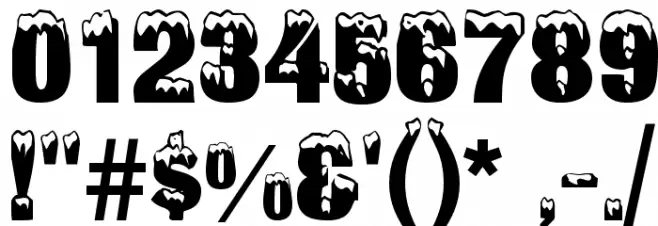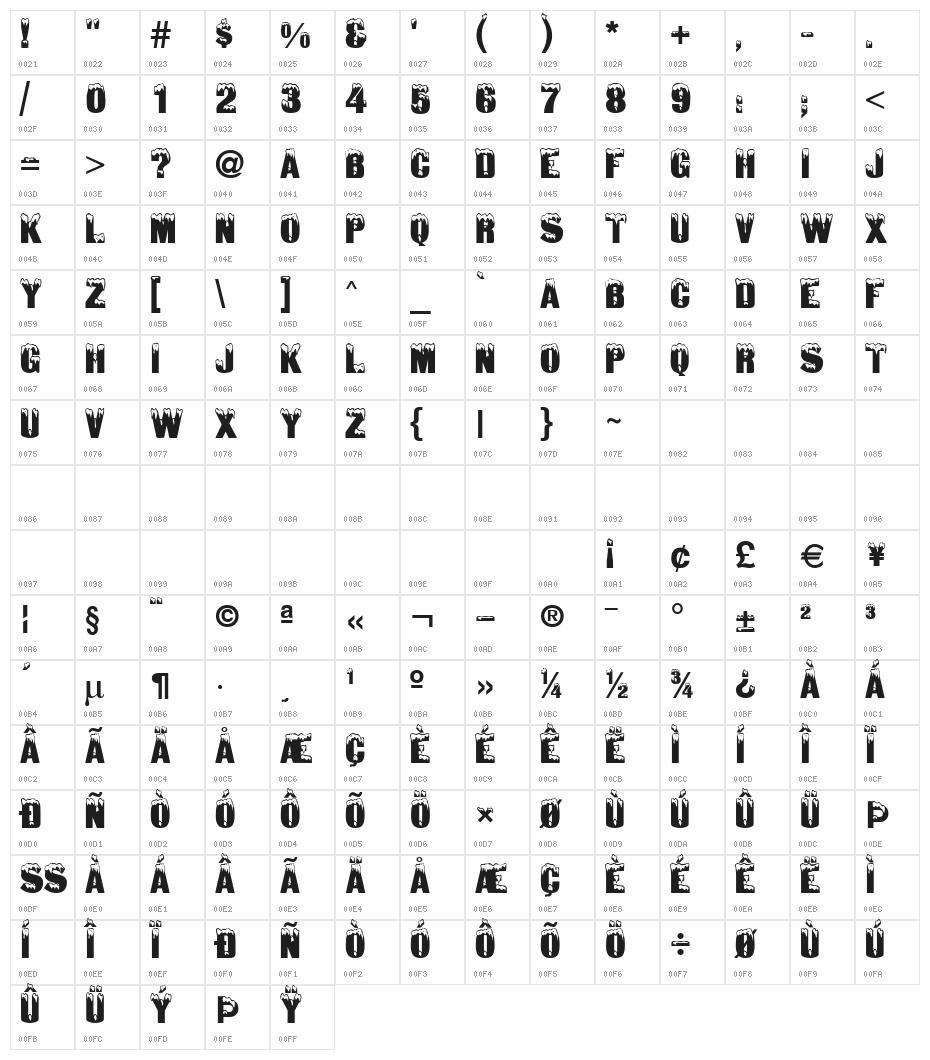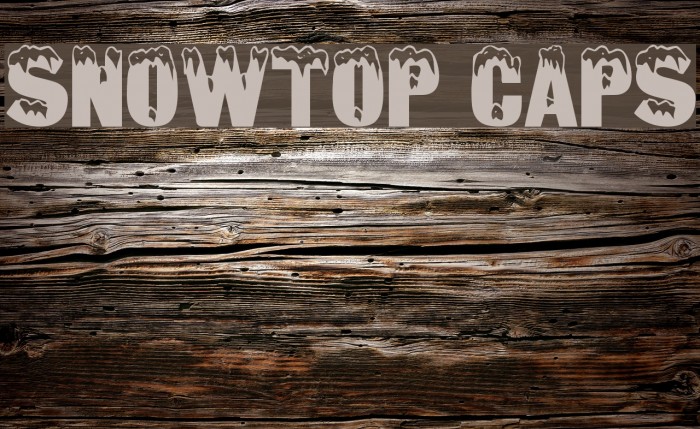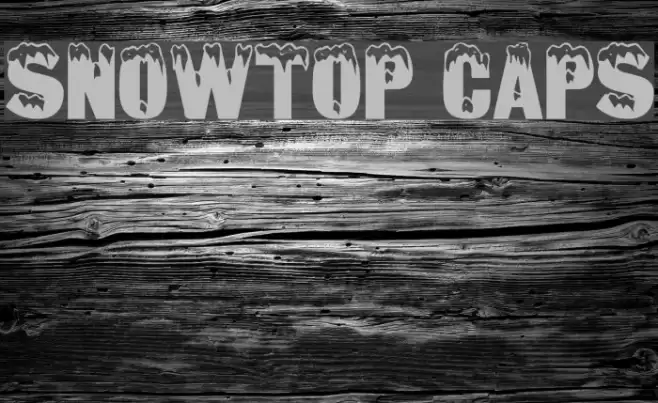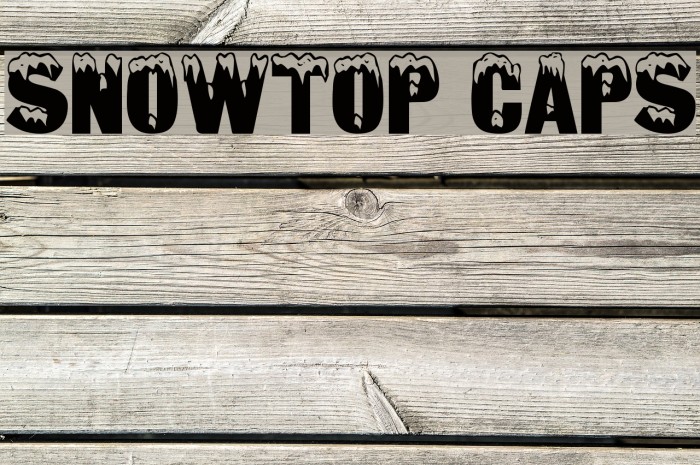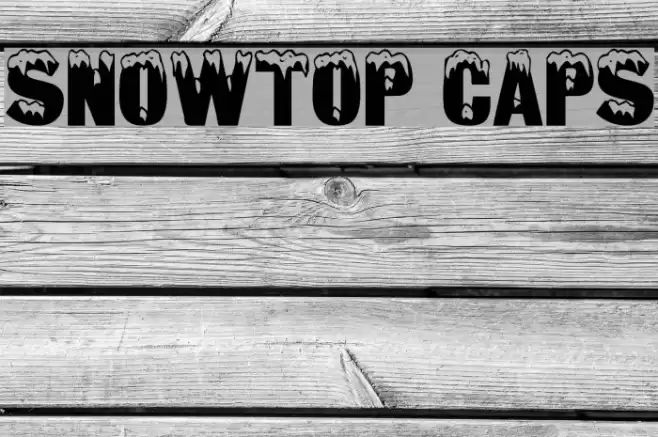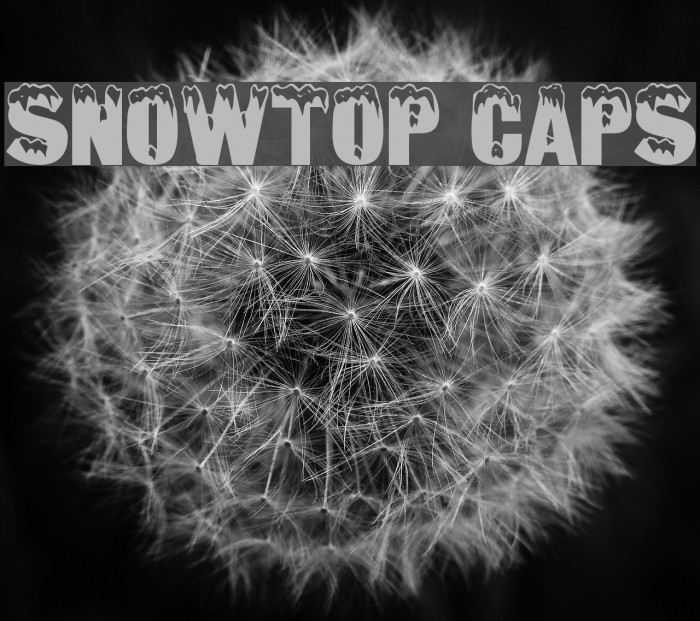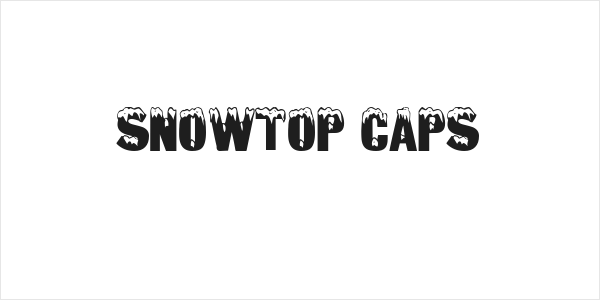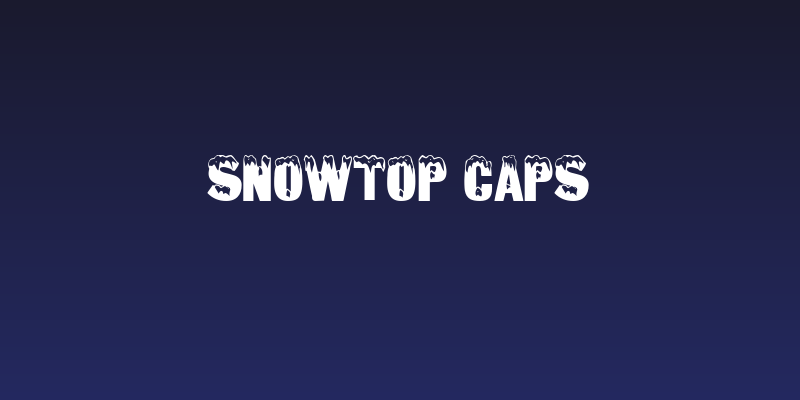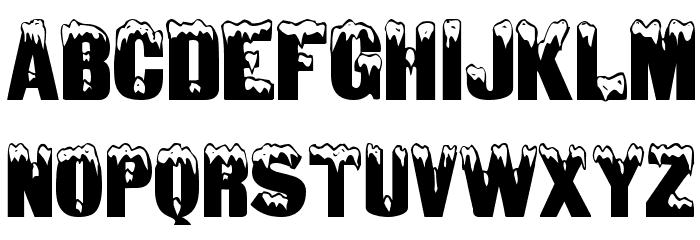
Snowtop Caps Font
Snowtop Caps Description
This font features a playful, winter-themed design with snow caps adorning the top of each character. The bold, uppercase letters are designed to evoke a sense of fun and whimsy, making it ideal for holiday-themed projects. The characters are well-defined with a strong presence, ensuring readability while maintaining a decorative flair. The snow detail adds a unique texture, making the font stand out in festive and playful contexts. The numbers and special characters are equally adorned with snow, maintaining consistency throughout the set.